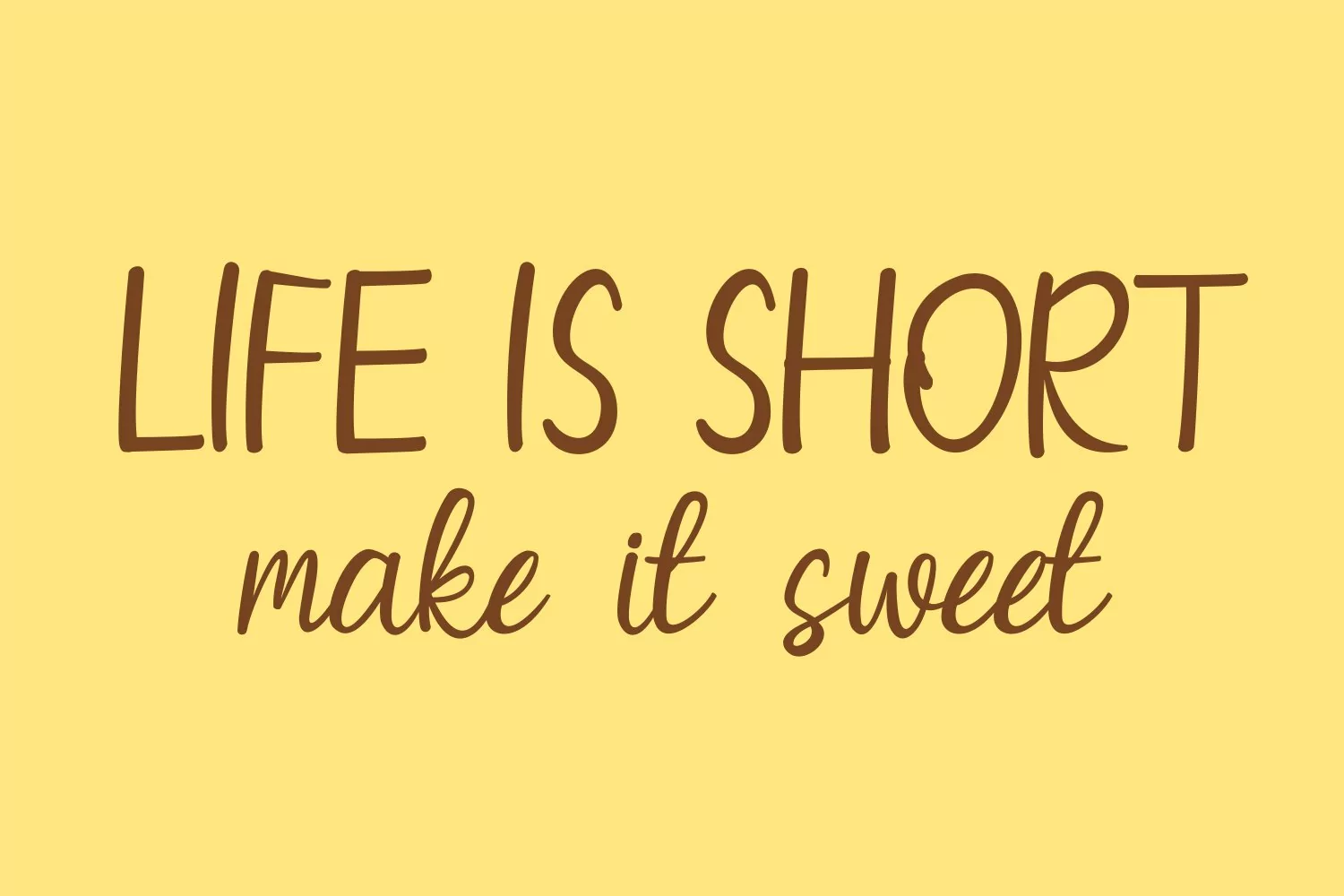
Salthing is a script font. It has a elegant, and modern look which can be used for logos, branding, invitations, stationary, wedding designs, social media posts, and every other design.